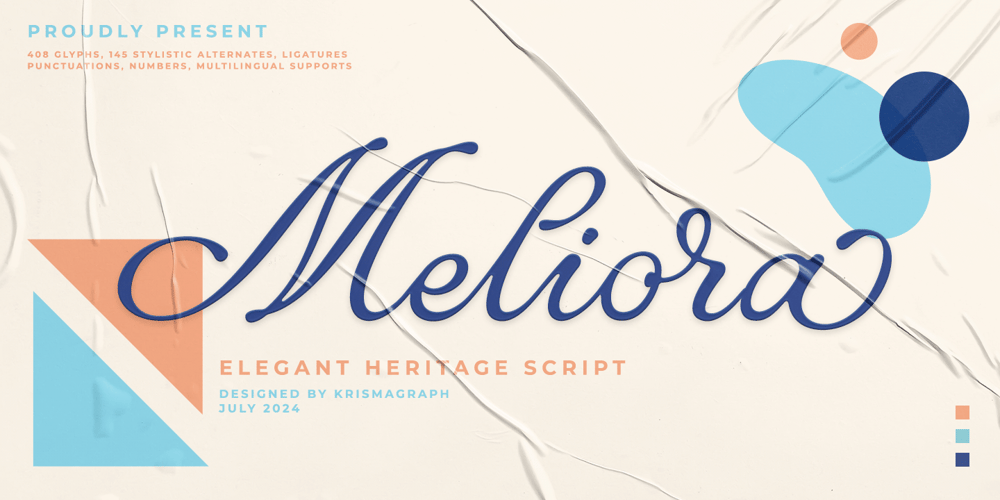
Meliora Script
Meliora Script font
Meliora Script Font Family was designed by Ratna Krismawati and published by Krismagraph. Meliora Script contains 1 styles and family package options. Meliora Elegant Heritage Script is a modern classic style font inspired by the timeless beauty of handwritten texts found in classic literature. This font comes with 145 stylistic alternates, ligatures, and extensive multi-language support, enhancing its aesthetic appeal and making your projects truly captivating.This font is perfect for elevating your creative projects, including logotypes, printed quotes, invitations, cards, product packaging, headers, letterheads, apparel designs, web layouts, magazines, books, and more. It adds a touch of sophistication and timeless elegance to any design.Feel free to follow, like and share. Thanks so much for checking out my shop!